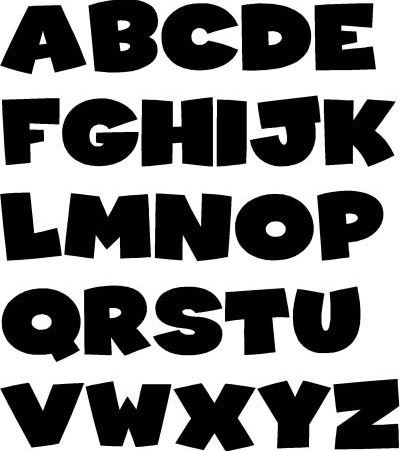
Block Font
This block fonts fall into the category of a large class of typography in the font family that’s appropriate for doing signs, headlines and other brief-replica. An attention-in search of different design like regions.
Historically, the design of this font has the identical and thicknesses, but in a number of extra stylish inventive fonts, thinner vs Diana. This is like a questa font in the same sense.
Style Of Block Font